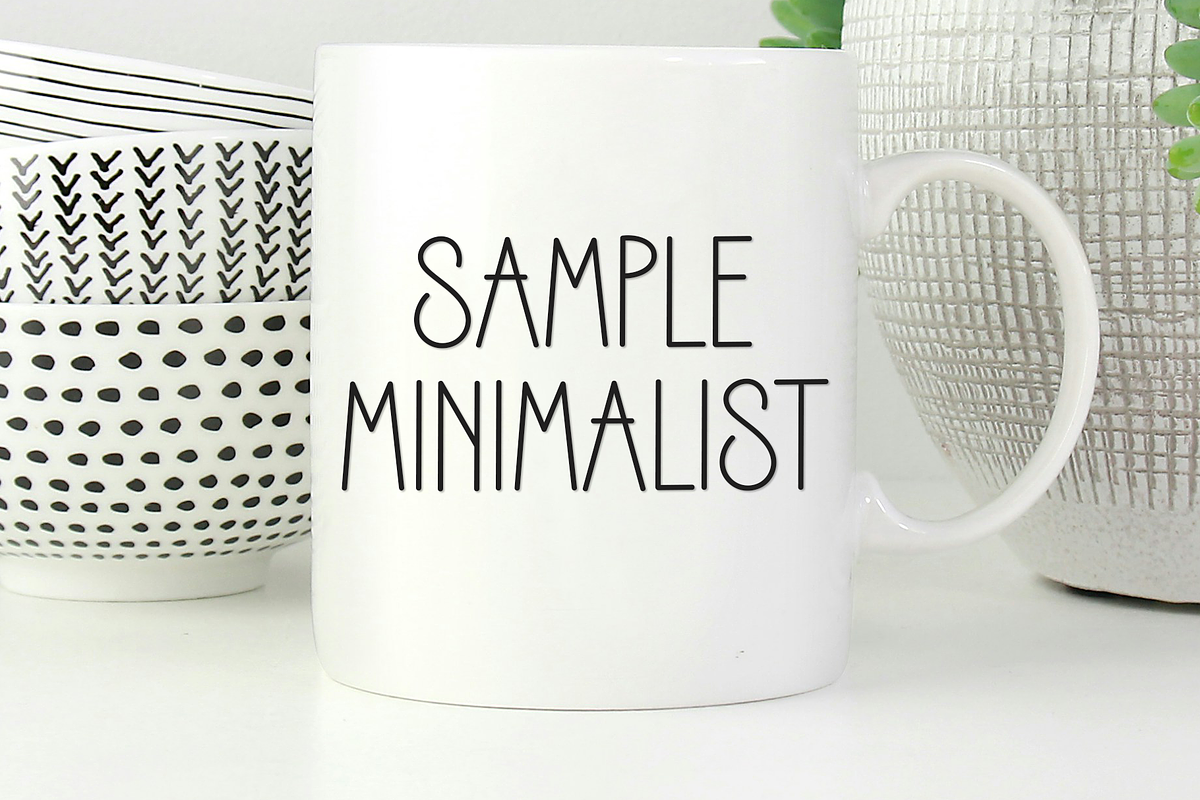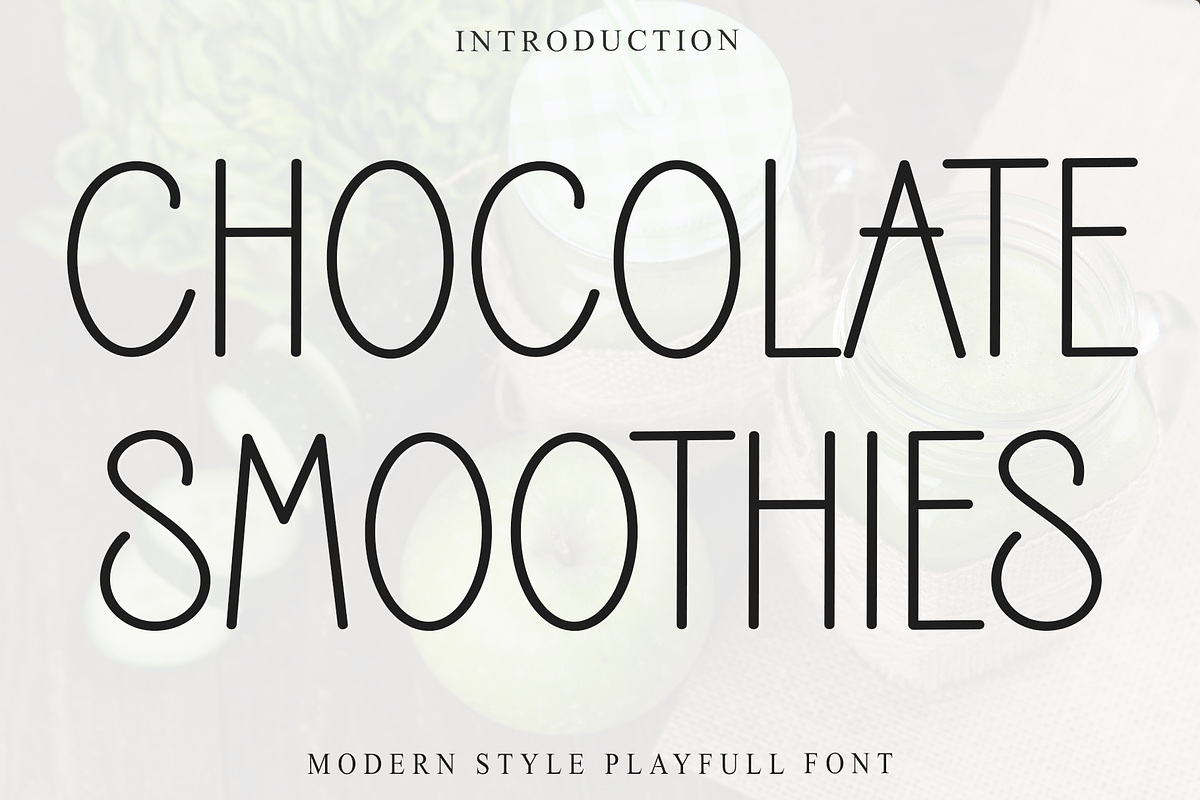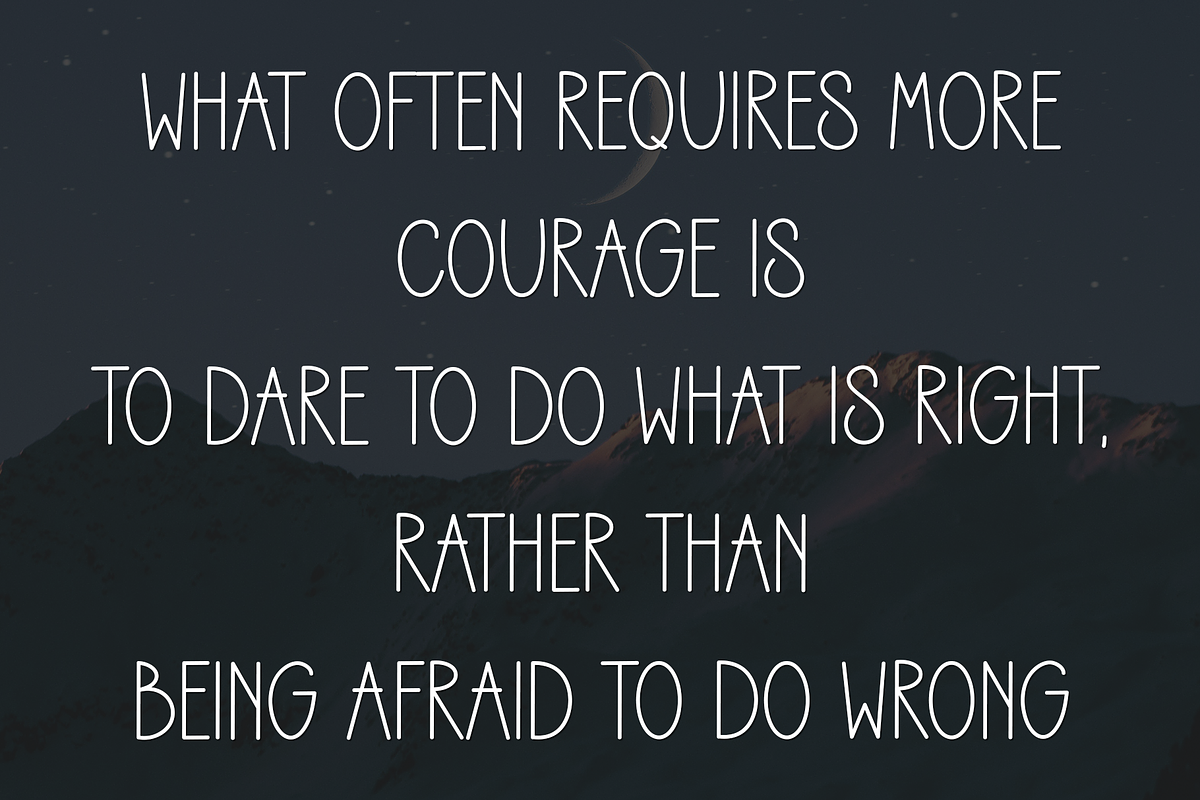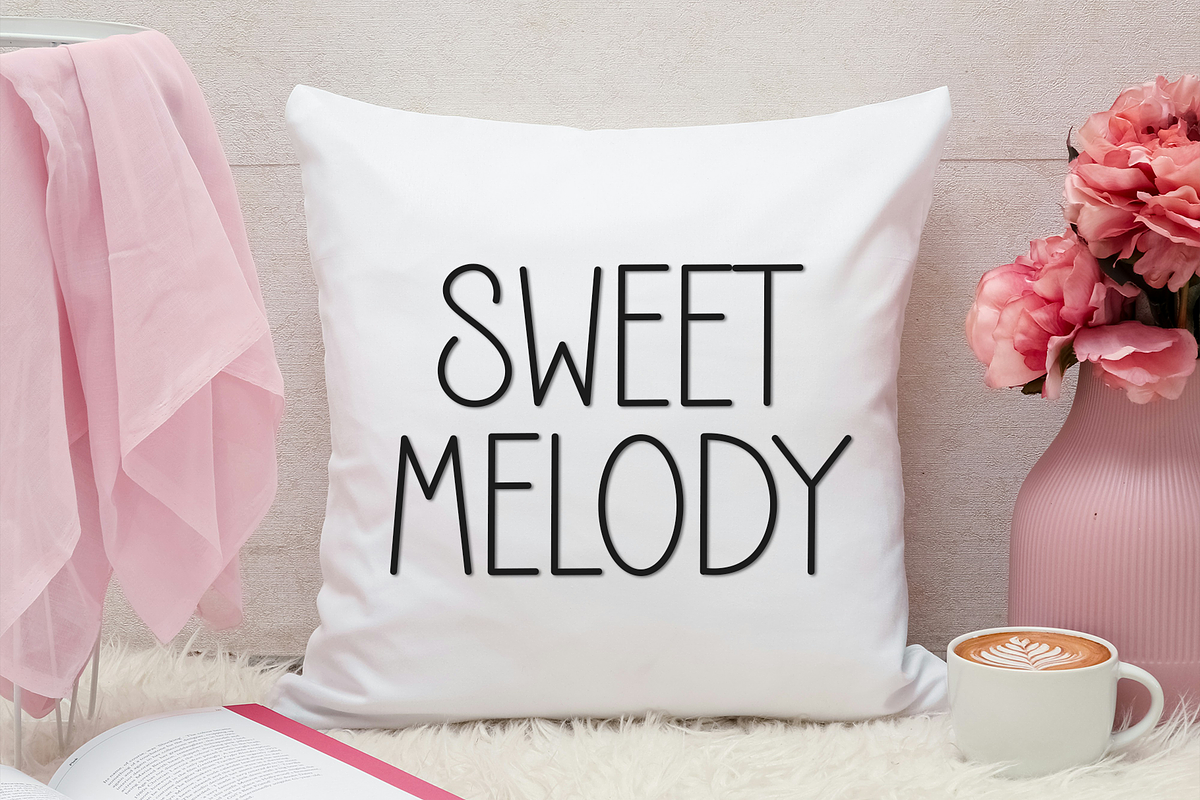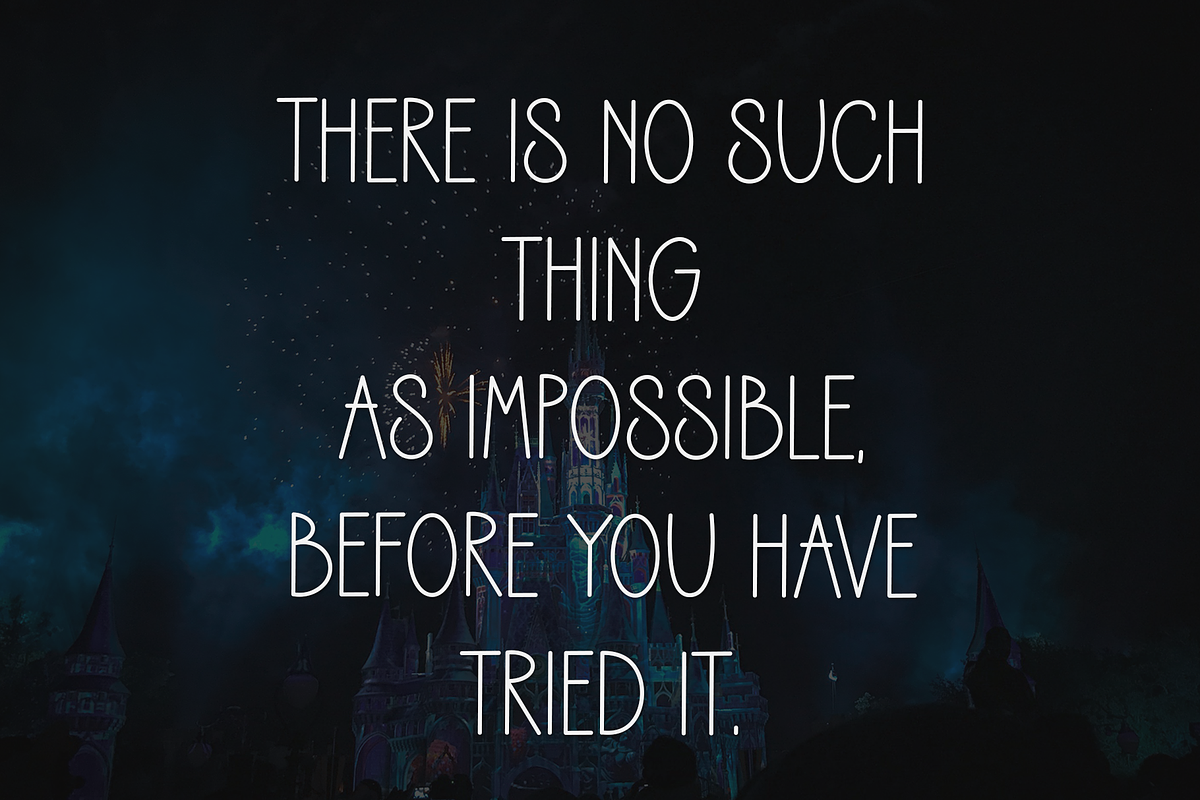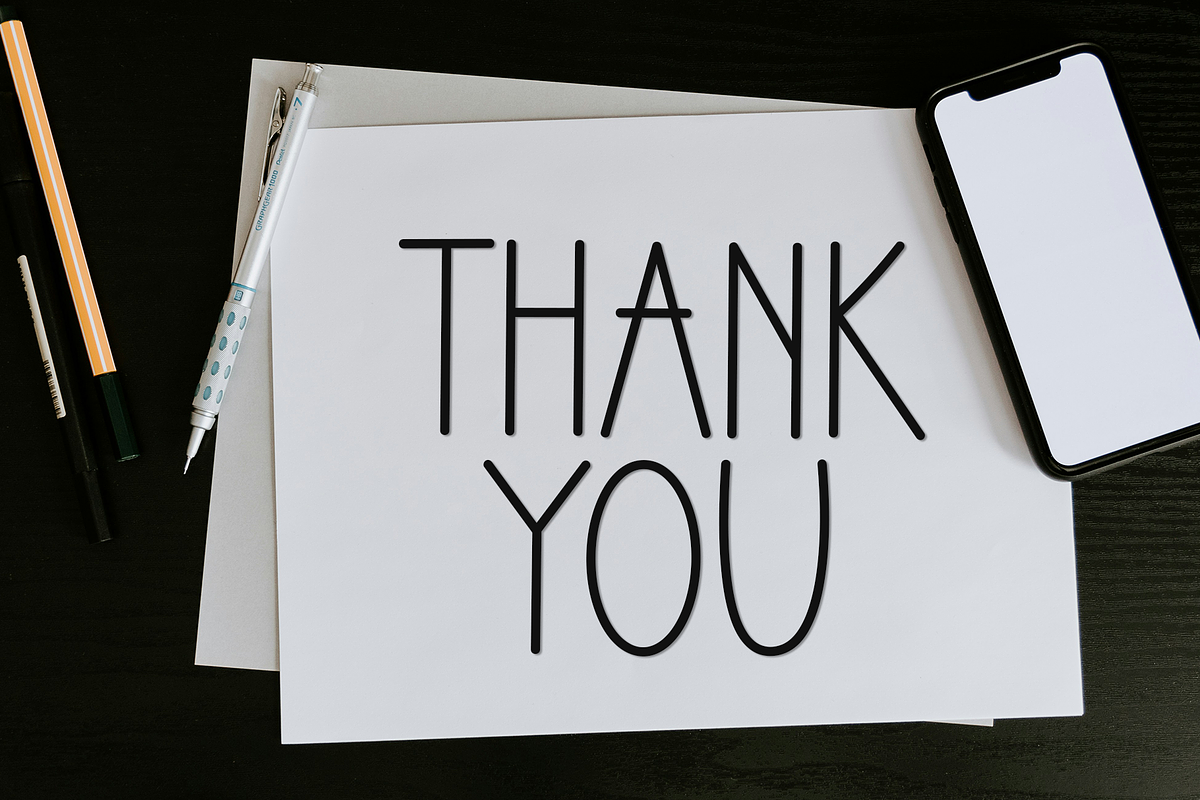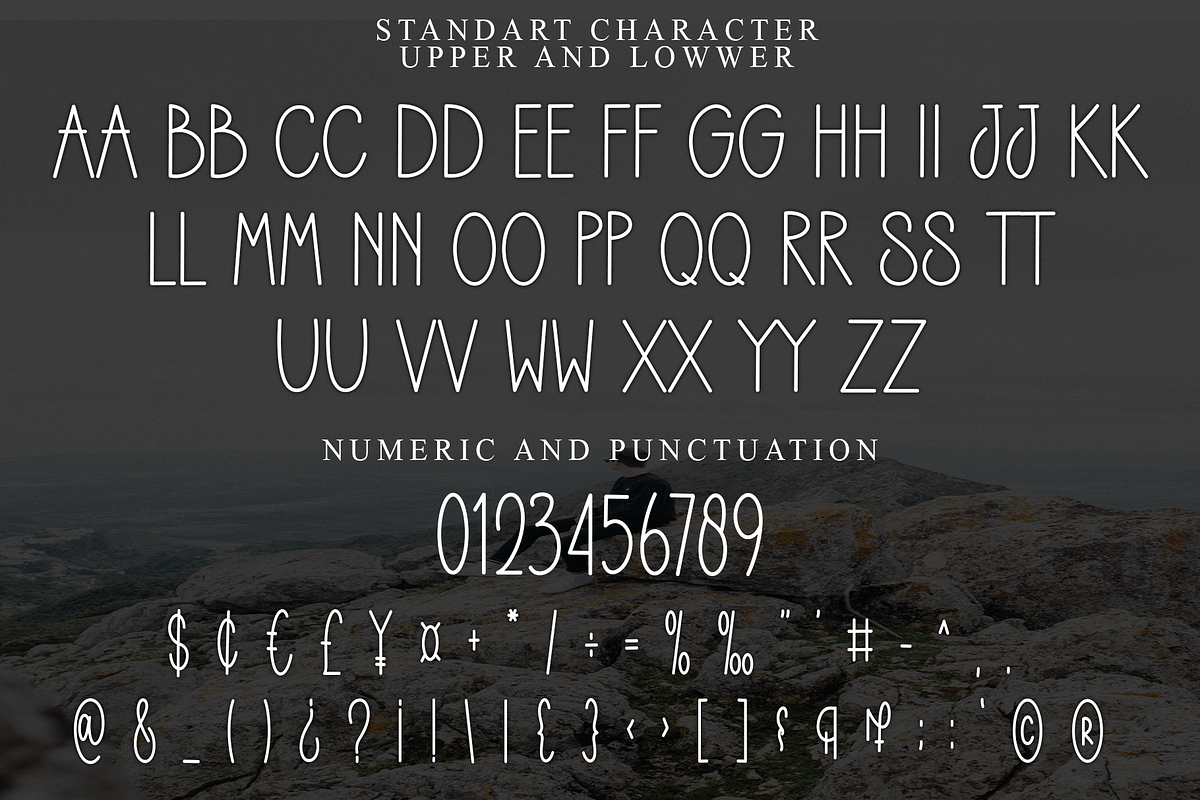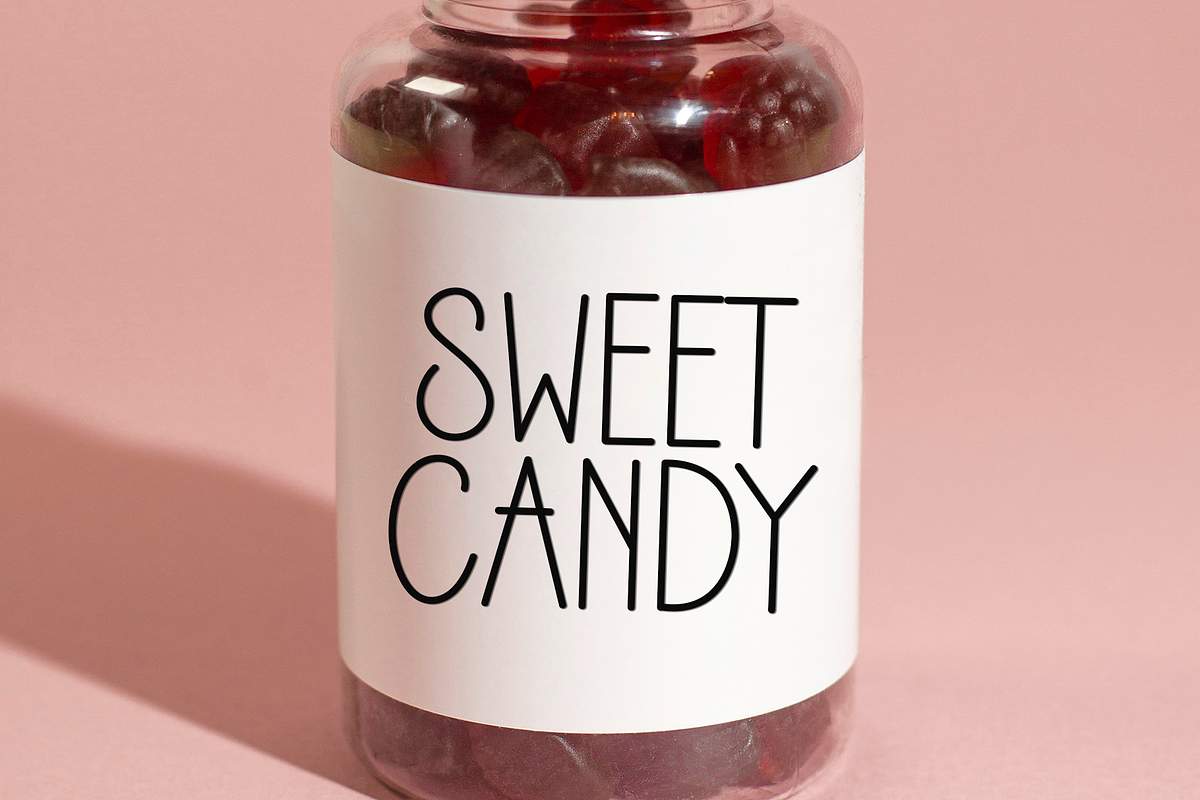
Chocolate Smoothies
Chocolate Smoothies is a beautiful and eye-catching font designed with a soft, unique touch. Its distinctive strokes give it a special character, making it meaningful and versatile for future use. With various characters, it’s perfect for design projects, crafts, and other creative works.